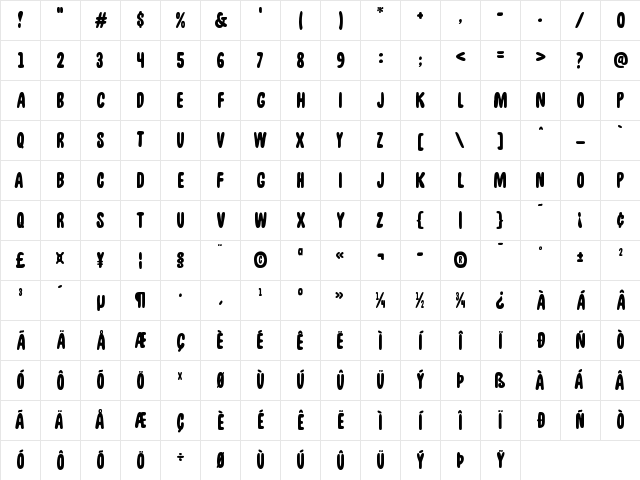
UnpackW00-Regular Regular
Foundry: PintassilgoPrints
Designer: Erica Jung & Ricardo Marcin
Design Context for UnpackW00-Regular
UnpackW00-Regular is a composed and adaptable typeface that performs quietly and consistently across a wide range of design contexts.